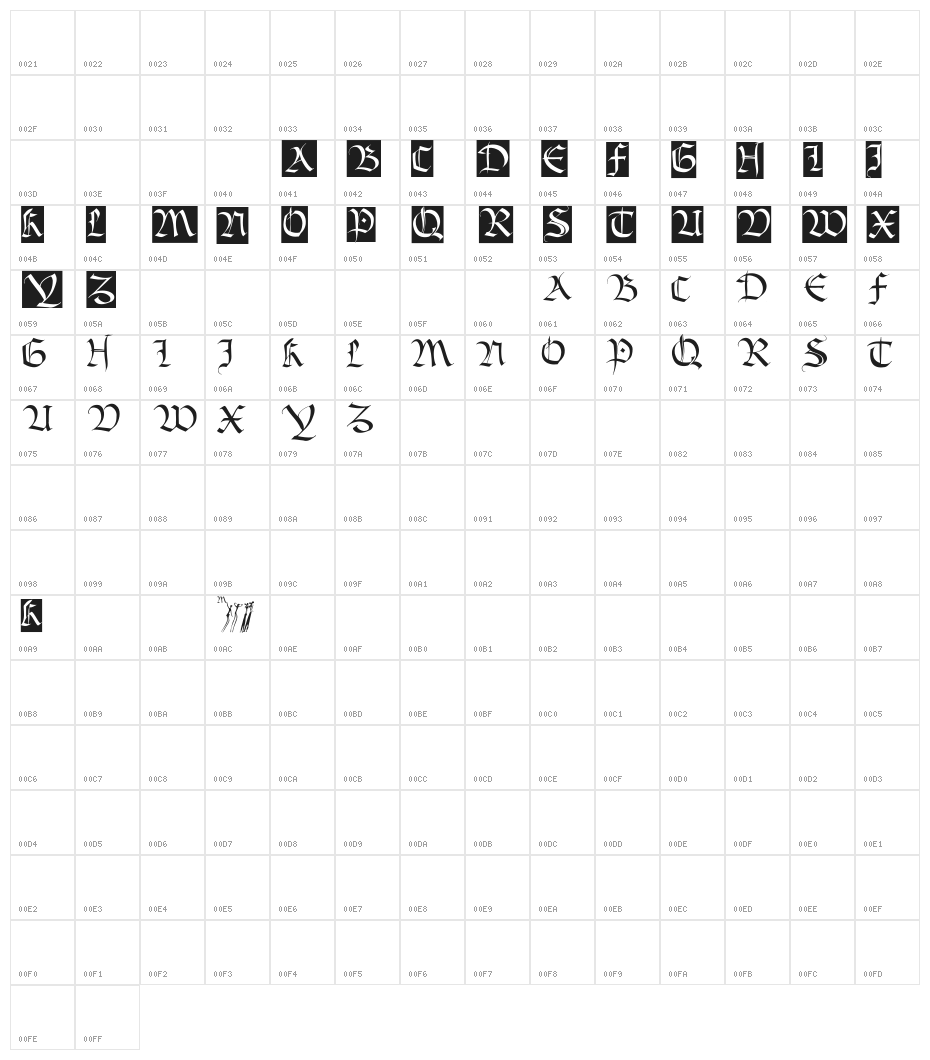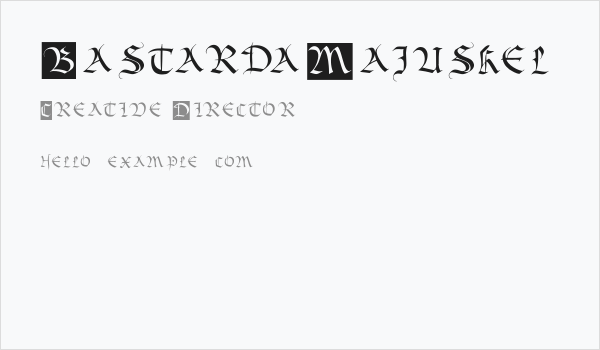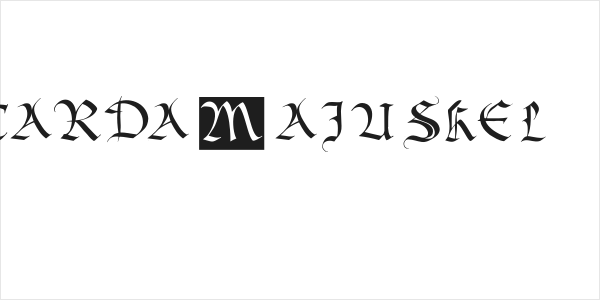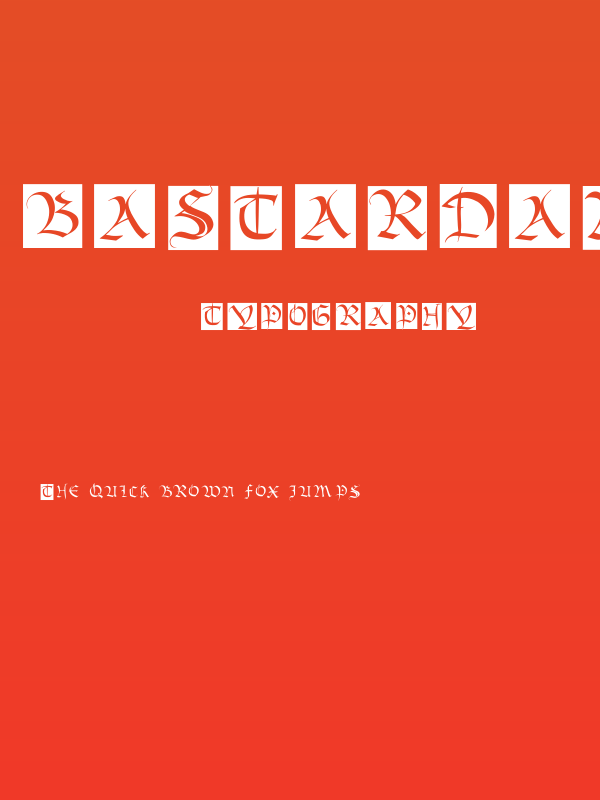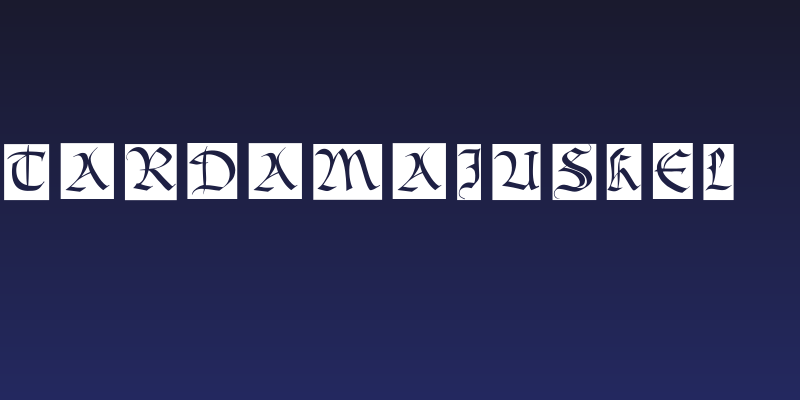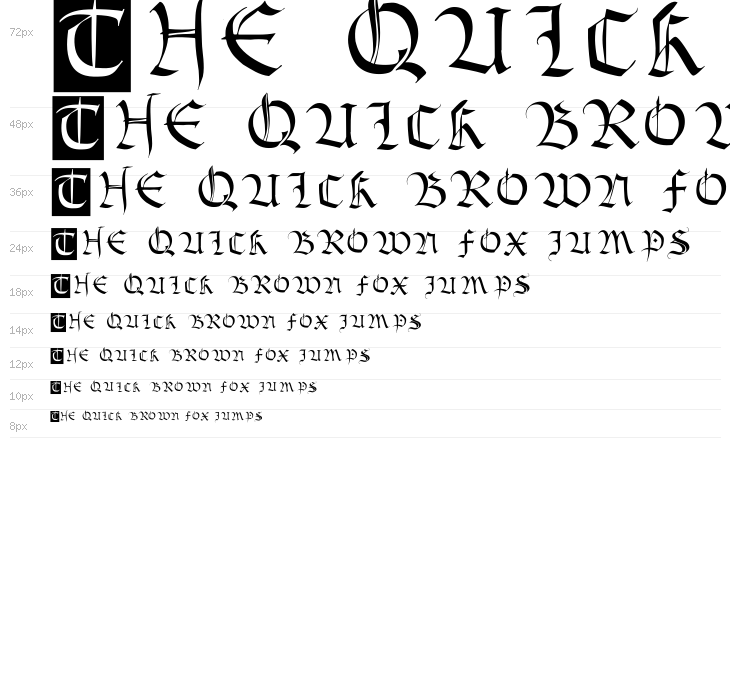
BastardaMajuskel1300 Font
BastardaMajuskel1300 Description
This font features a distinct Gothic style, characterized by its sharp, angular lines and ornate detailing. The uppercase letters are bold and prominent, with intricate serifs that add a touch of elegance and historical flair. The lowercase letters maintain the same angular aesthetic, providing a cohesive look across the typeface. The numbers and special characters are equally stylized, ensuring consistency throughout. This font's design is reminiscent of medieval manuscripts, making it ideal for projects that require a historical or dramatic touch.